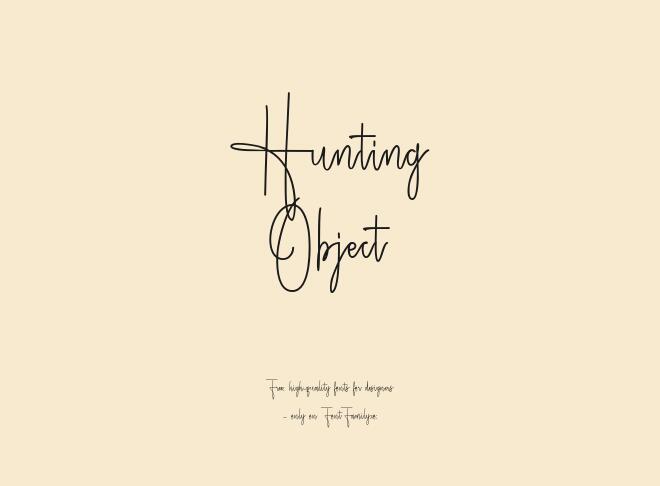
Hunting Object Font
The Hunting Object Font is a distinctive typeface that combines rustic and vintage elements into a unique design. It's perfect for designers seeking a font with a strong character and a hint of nostalgia. The Hunting Object Font is excellent for various design work, including logos, posters, headlines, and packaging design. Its decorative elements are reminiscent of vintage outdoor and adventure themes, making it a fitting choice for projects that require a rugged yet sophisticated look. The Hunting Object Font stands out among other rustic fonts due to its unique character shapes and decorative elements. Its versatility makes it a valuable addition to any designer's font collection. It's a font that is not only visually appealing but also functional, providing readability despite its decorative nature.